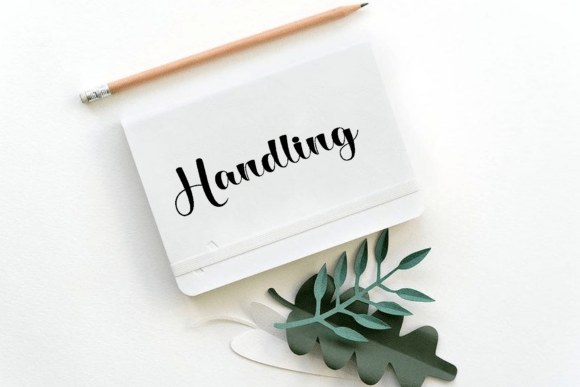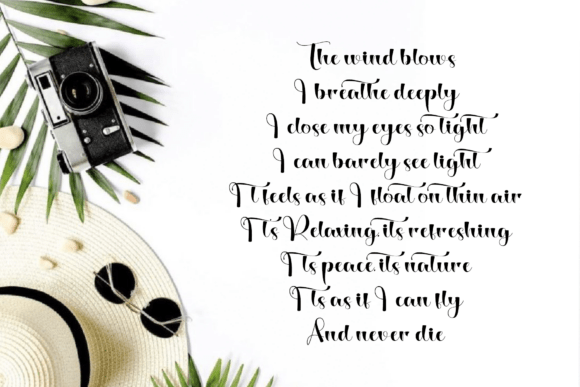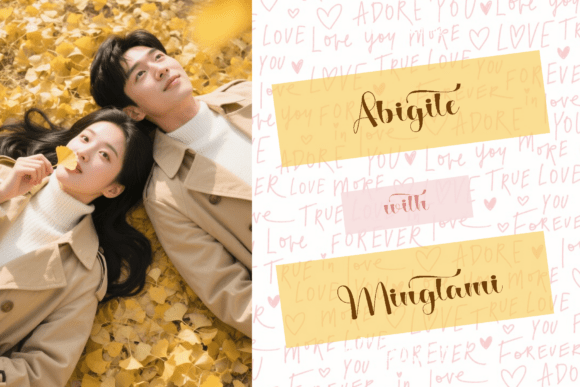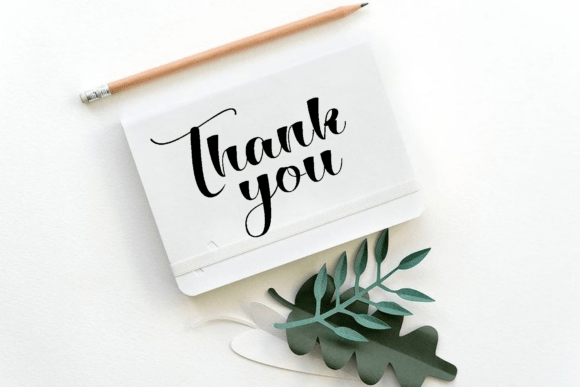
The Power of Authentic Font: Elevate Your Design with a Timeless Handwritten Style
When it comes to creating visually stunning designs, the right font can make all the difference. For designers and crafters looking to add a touch of personality and elegance to their work, the Authentic font is an excellent choice. This lovely and timeless handwritten font is perfect for creating eye-catching logos, branding, and quotes that will leave a lasting impression.
What Makes Authentic Font So Special?
The Authentic font boasts a unique and beautiful touch that sets it apart from other fonts. Every letter is carefully crafted to bring a sense of warmth and personality to your designs. The font’s handwritten style gives it a humanizing quality that is hard to replicate with more traditional fonts. Whether you’re looking to create a logo, branding materials, or social media graphics, the Authentic font is sure to bring your design to life.
The Benefits of Using Authentic Font
So why choose the Authentic font for your design needs? Here are just a few benefits of using this versatile and stylish font:
- Elegance and Sophistication: The Authentic font exudes elegance and sophistication, making it perfect for high-end branding and luxury designs.
- Uniqueness: With its handwritten style and unique lettering, the Authentic font is sure to stand out from the crowd and make your design memorable.
- Versatility: The Authentic font can be used for a wide range of design applications, from logos and branding to quotes and social media graphics.
- Easy to Read: Despite its elegant and cursive style, the Authentic font is easy to read, making it perfect for use in body text and other written materials.
How to Use Authentic Font in Your Design
Using the Authentic font in your design is easy. Here are a few tips to get you started:
- Pair it with Other Fonts: The Authentic font pairs well with other fonts, including sans-serif and serif fonts. Experiment with different combinations to find the perfect look for your design.
- Use it for Headlines and Titles: The Authentic font is perfect for use in headlines and titles, where its elegant and cursive style can really shine.
- Add a Personal Touch: Use the Authentic font to add a personal touch to your design. Its handwritten style gives it a humanizing quality that can help to connect with your audience.
Design Ideas Using Authentic Font
The Authentic font is a versatile design tool that can be used in a wide range of applications. Here are a few design ideas to get you started:
- Logo Design: Use the Authentic font to create a unique and memorable logo for your brand.
- Branding Materials: The Authentic font is perfect for use in branding materials, such as business cards, letterheads, and brochures.
- Social Media Graphics: Use the Authentic font to create eye-catching social media graphics, such as quote graphics and promotional images.
- Wedding and Event Design: The Authentic font is perfect for use in wedding and event design, where its elegant and sophisticated style can add a touch of luxury.
The Authentic font is a timeless and elegant handwritten font that is perfect for designers and crafters looking to add a touch of personality and sophistication to their work. With its unique and beautiful lettering, the Authentic font is sure to bring your design to life. Whether you’re looking to create a logo, branding materials, or social media graphics, the Authentic font is an excellent choice.